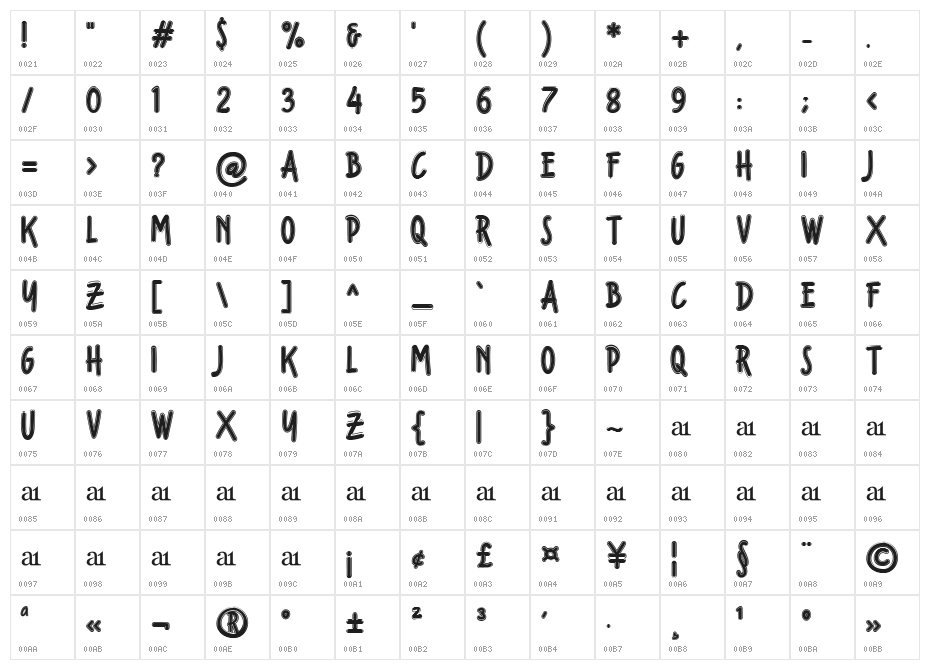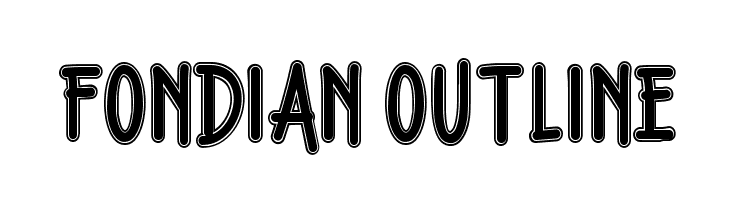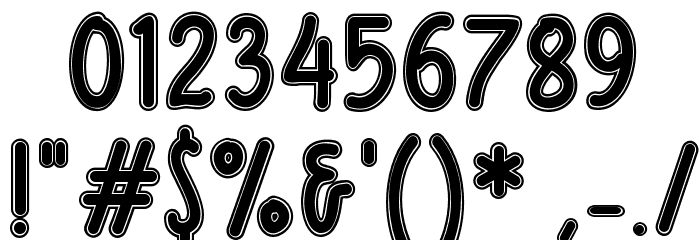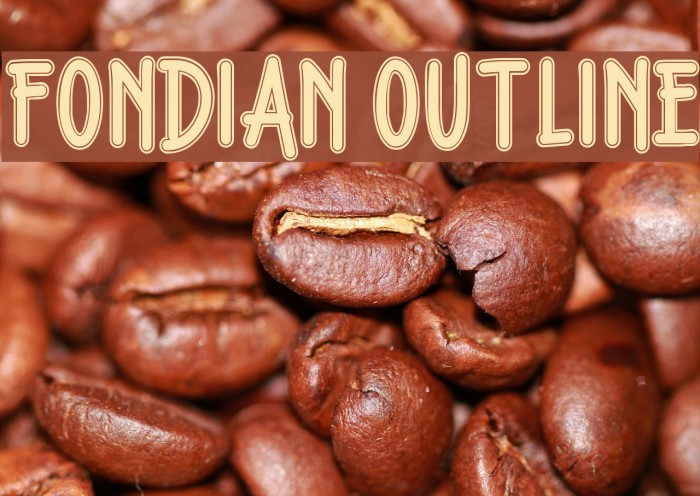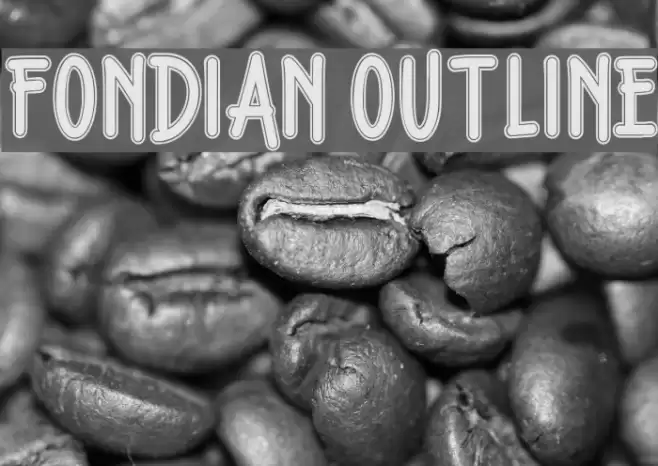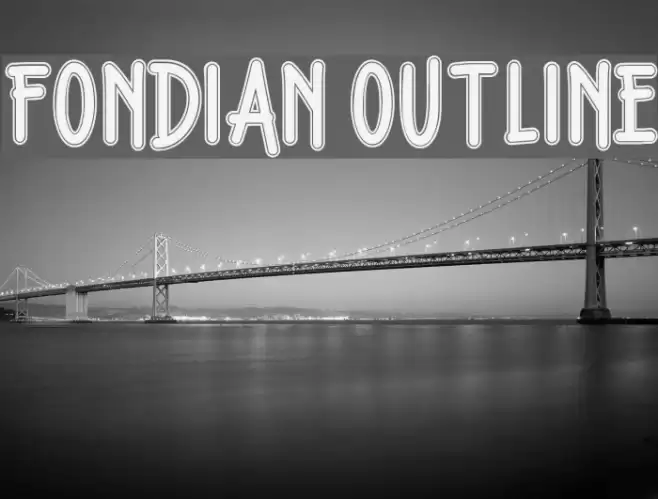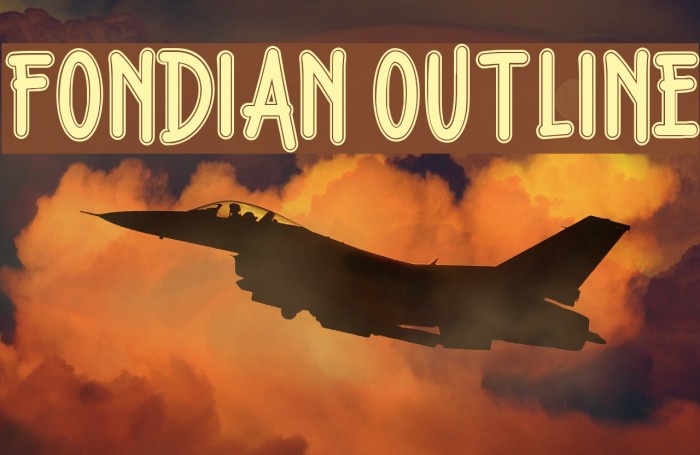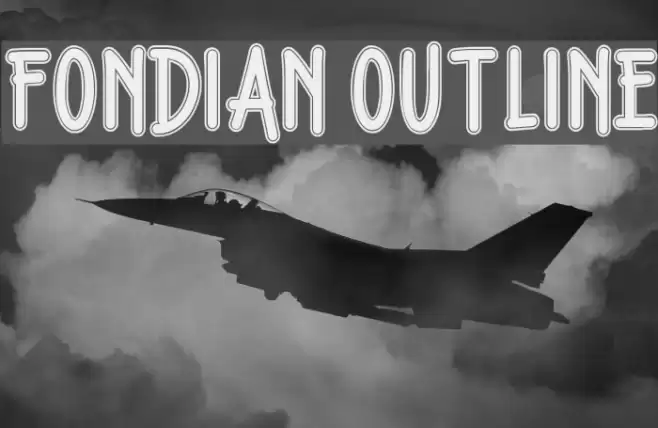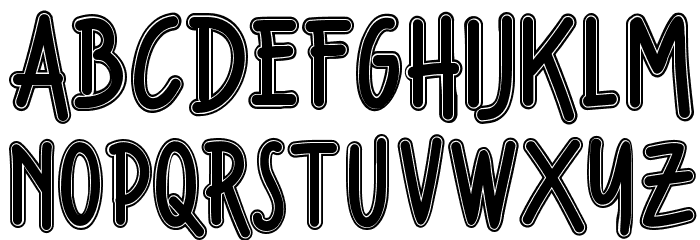
Fondian Outline Font
Fondian Outline Description
This font features a bold, playful outline style that gives each character a distinct and eye-catching appearance. The letters are rounded with a consistent stroke width, creating a harmonious and approachable look. The uppercase and lowercase characters maintain a uniform style, with a slight slant that adds a dynamic feel. The numbers and special characters are designed to match the overall aesthetic, ensuring a cohesive appearance across all text elements. This font's unique outline design makes it ideal for projects that require a fun and engaging visual impact.
| Overall Style | Playful, Modern |
| Proposed Projects | Ideal for children's books, playful branding, posters, and creative social media graphics. |